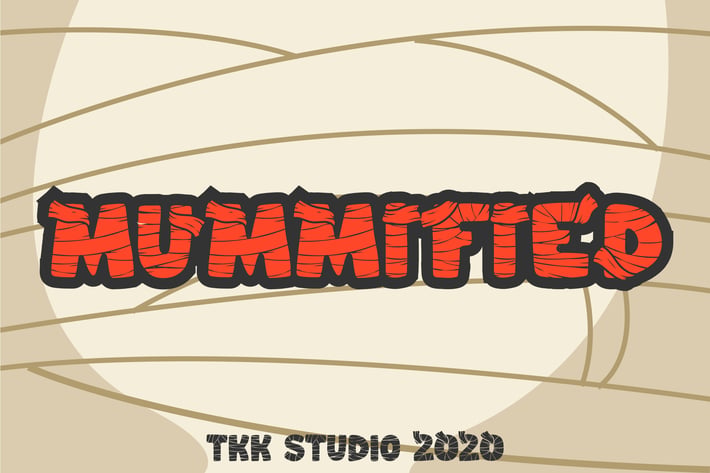
Halloween Font - Mummified
Mummified - Kids Horror Font
Mummified is a quirky, cartoon-style horror font with bold strokes, uneven shapes, and spooky personality. With its jagged contours and slightly wobbly baseline, this display typeface brings a playful fright to any design. Created for kids-themed Halloween projects, it evokes the charm of haunted cartoons, friendly ghosts, and pumpkin-filled fun.
Whether you’re creating trick-or-treat flyers or crafting a ghostly classroom event poster, Mummified keeps things creepy—but never scary. Its chunky, skeletal letterforms are readable, energetic, and full of visual rhythm.
Perfect for Halloween Projects, Kids Games, and Spooky Promotions
Mummified thrives in projects that blend fun with fear—just the right dose of creepy for young audiences. Use it in children’s books, spooky classroom materials, party invitations, costume tags, or even Halloween sales banners. It instantly sets a playful, themed tone without crossing into dark horror territory.
It’s the ideal choice for designers working on seasonal packaging, game interfaces, story apps, or anything needing a spine-tingling twist made kid-friendly.
Key Features :
Wacky horror style with friendly vibes
Designed for Halloween and kids projects
High readability for playful displays
Perfect for print, packaging, and seasonal campaigns
* Balanced weight for standout headlines